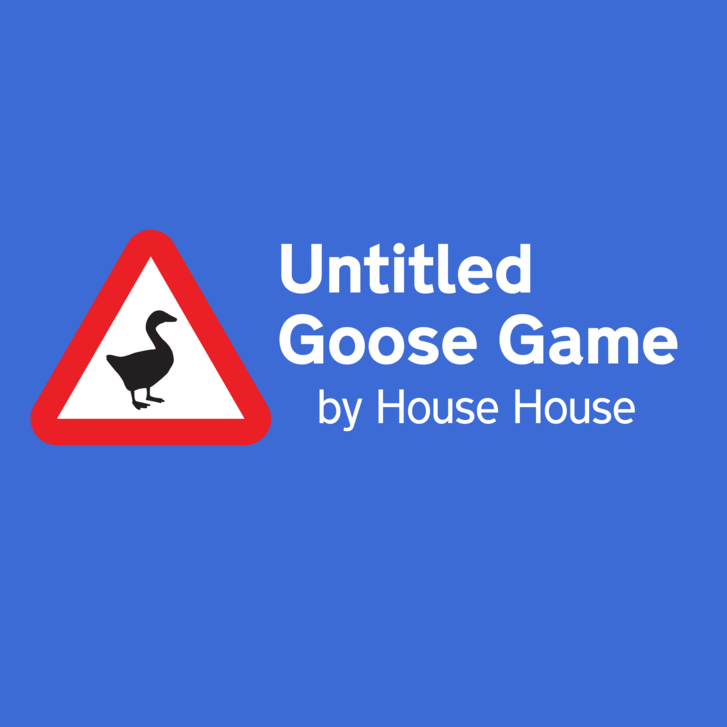
Untitled Goose Game Font
Fonts in UseUntitled Goose Game is a puzzle stealth video game developed by House House. The game allows players to control a mischievous goose that causes havoc in a small village by completing a series of tasks and puzzles.
K-Type's Transport New font is used for the logo of the video game, which is based on the UK roadways lettering by Jock Kinneir and Margaret Calvert. You may view and learn more about the font here.